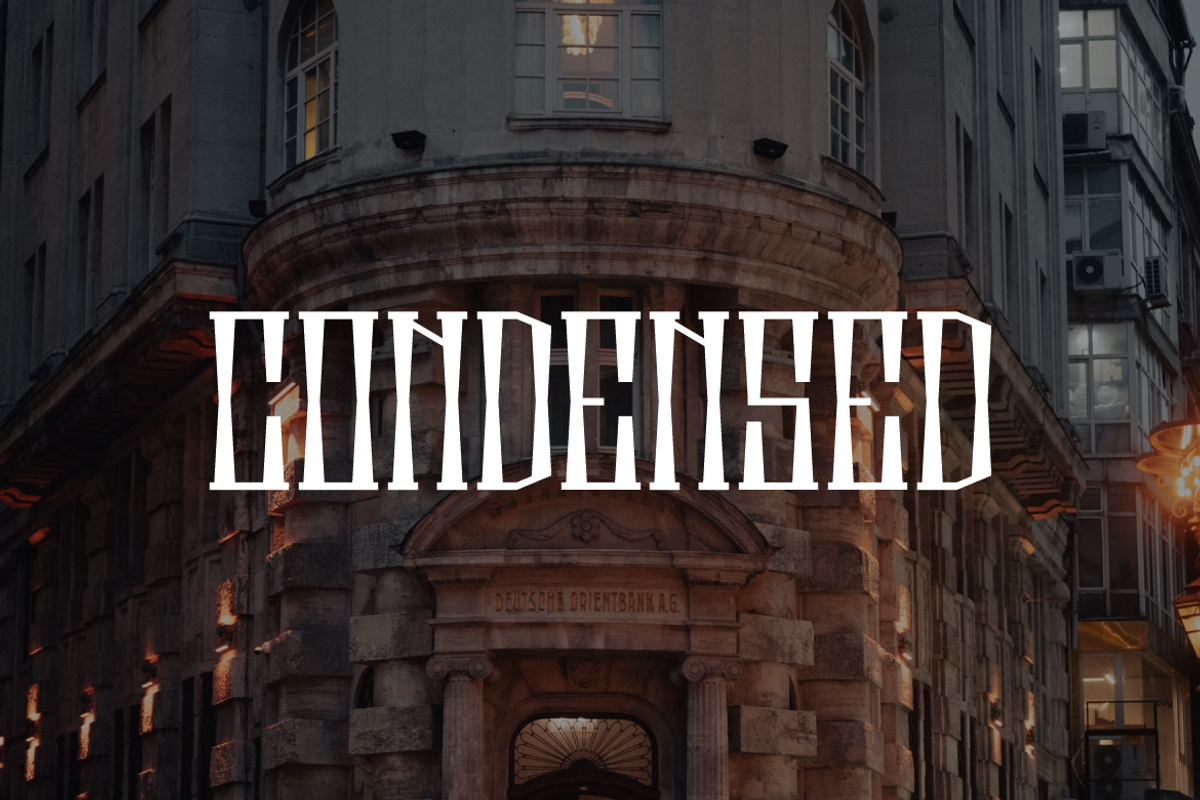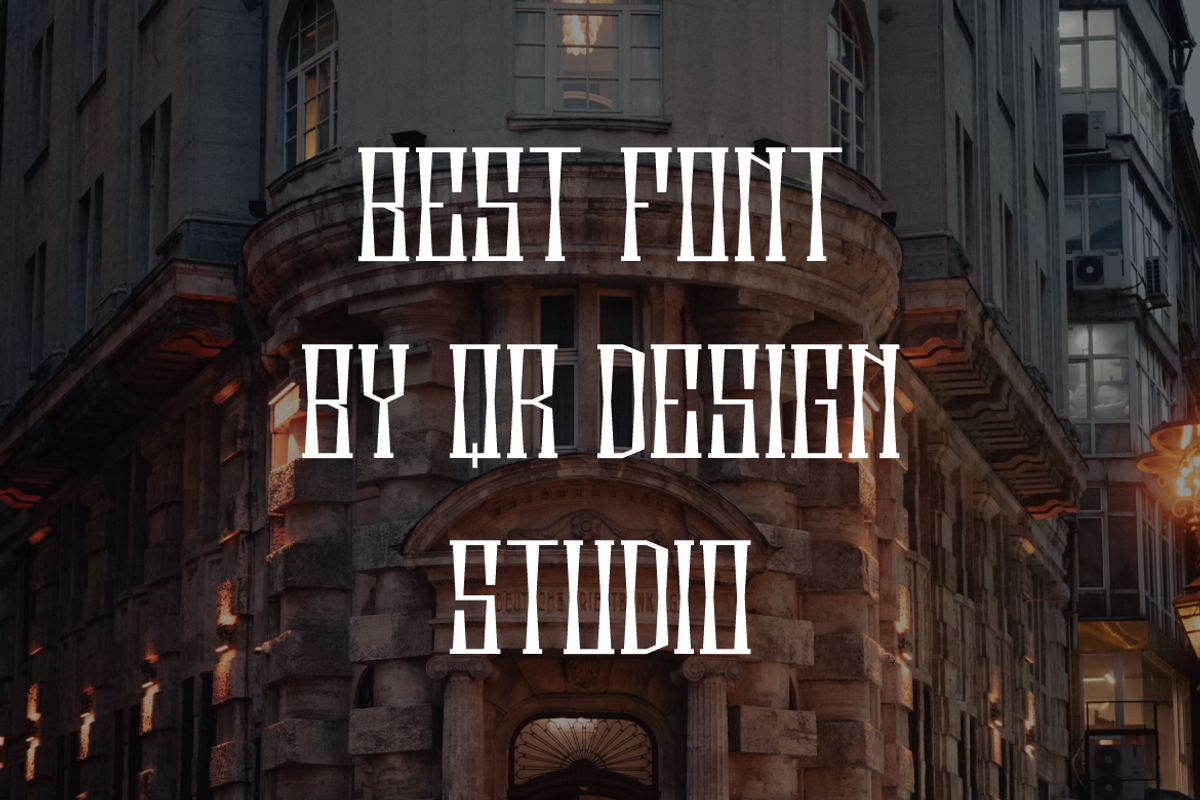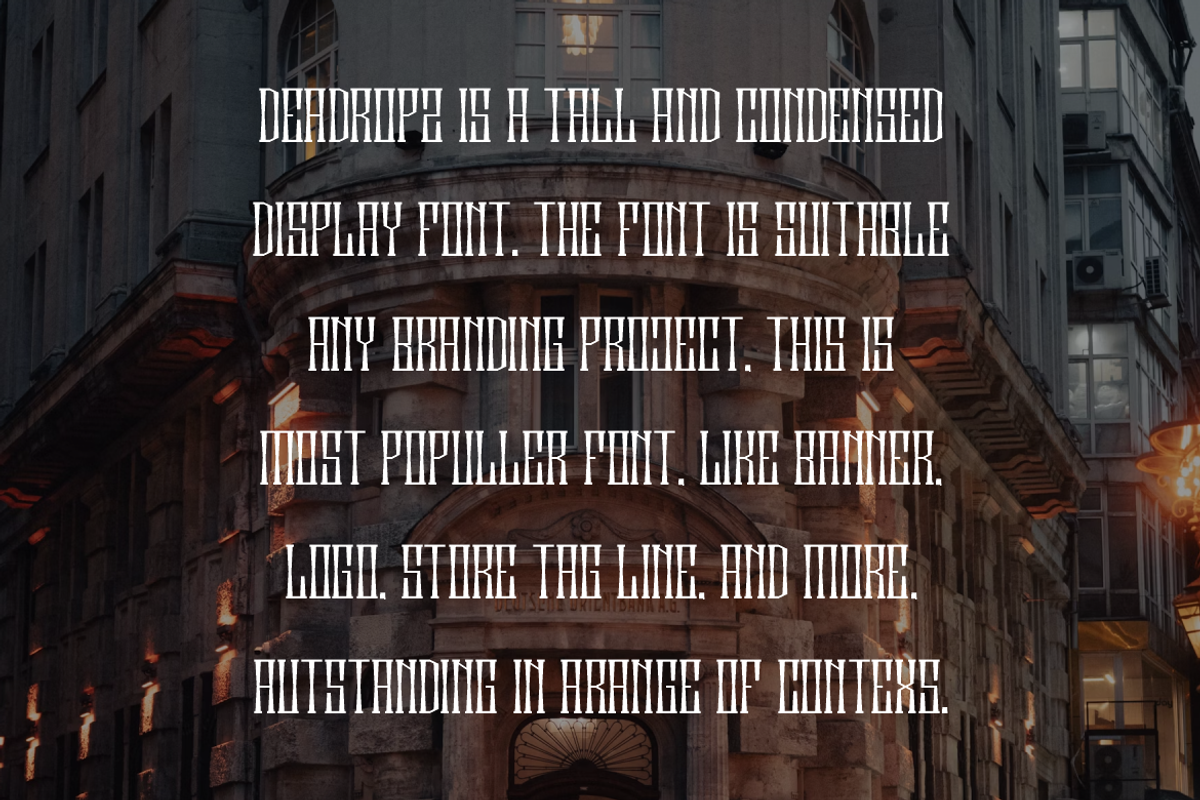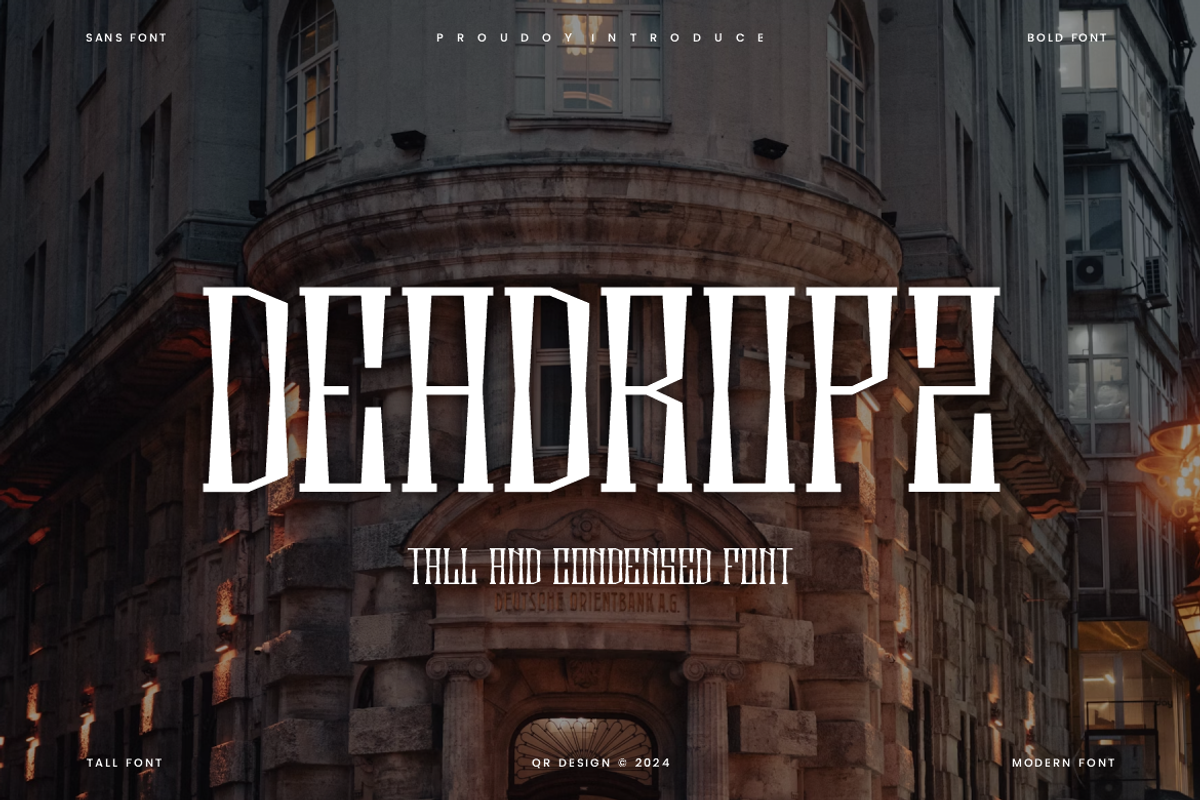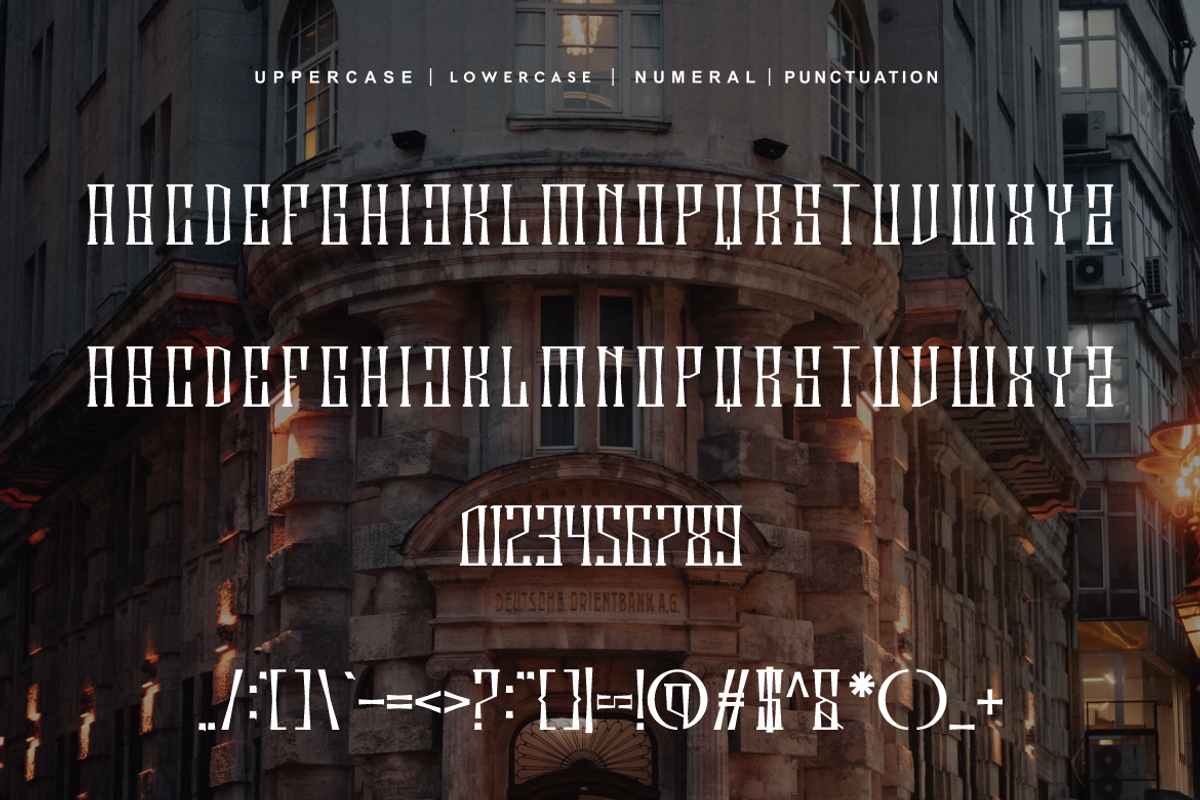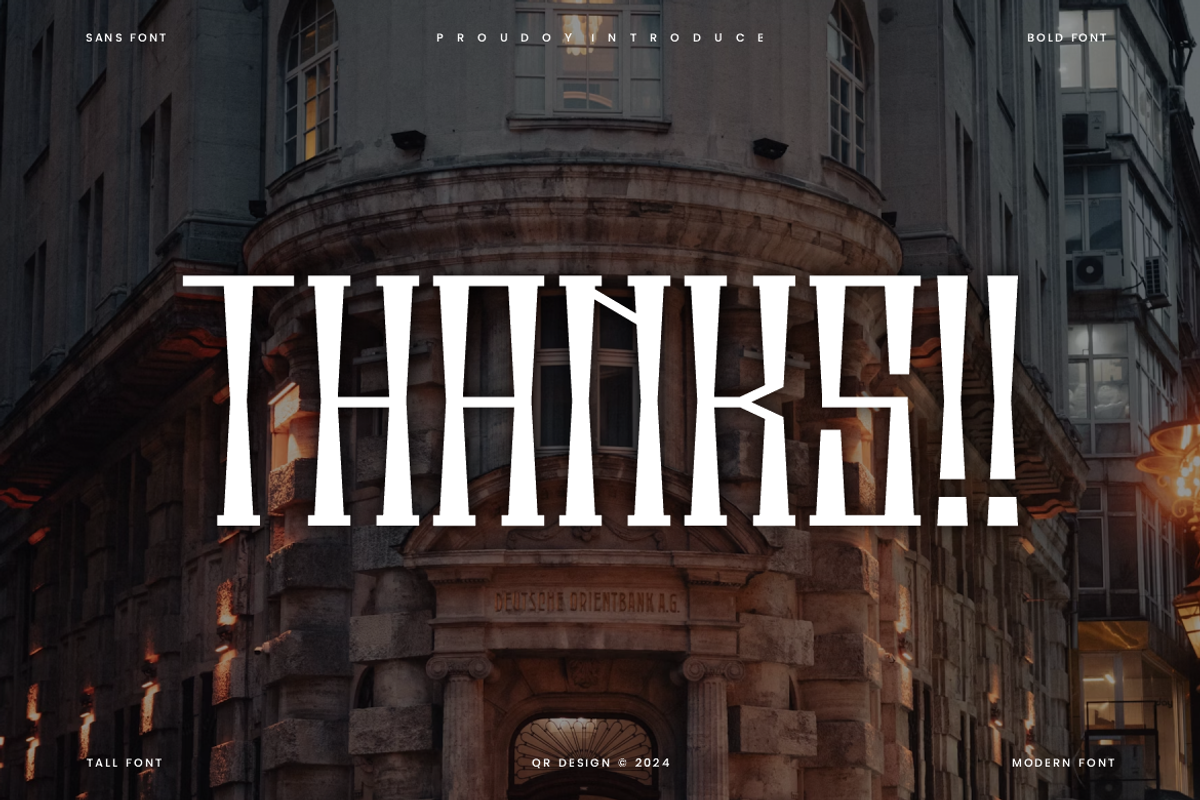
Deadropz - Tall & Condensed Font
Deadropz - Tall Font is a bold and authentic display font. The font is suitable for any branding project like poster, logo, sport, and many more. Outstanding in a wide range of contexts.